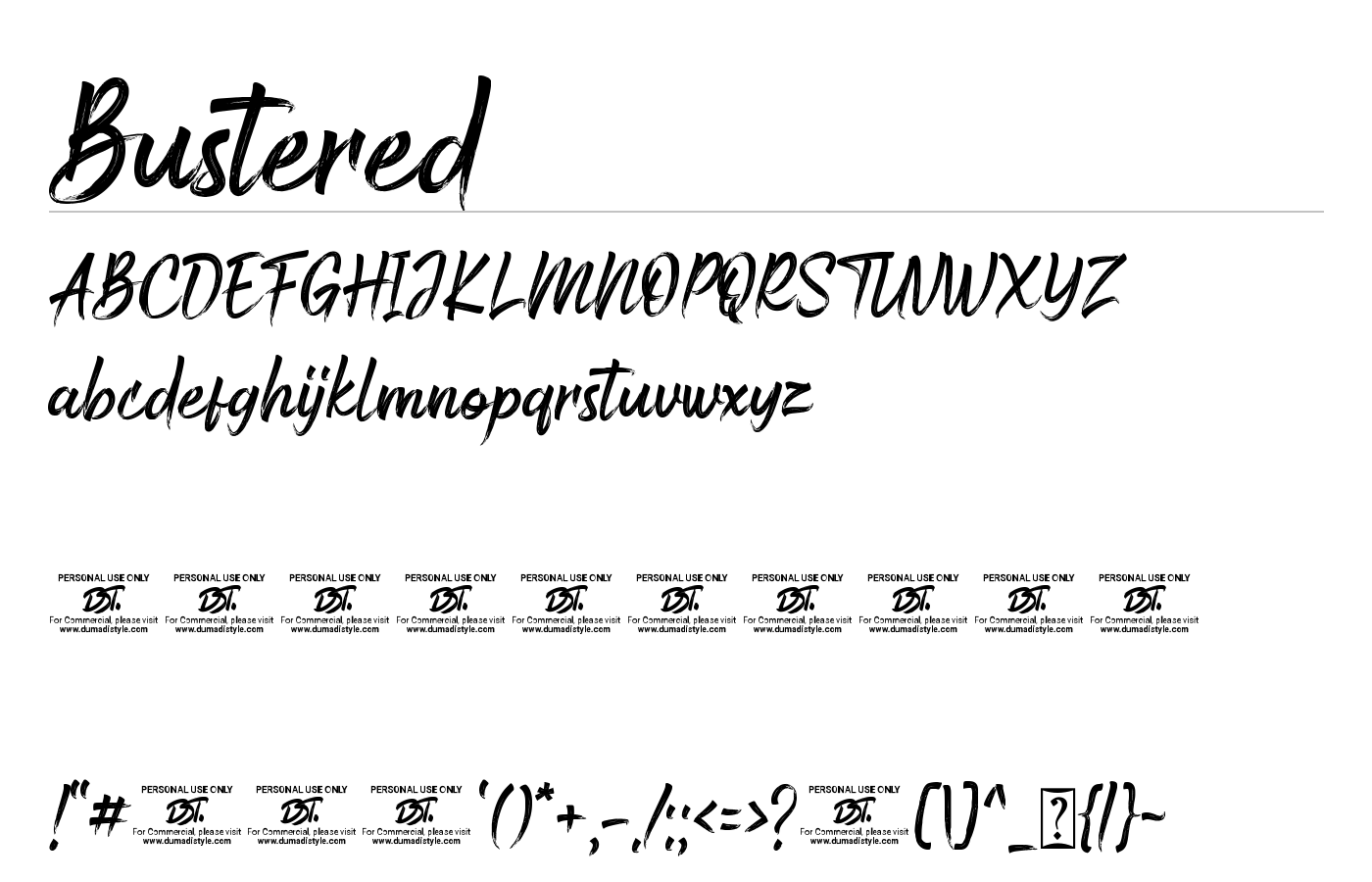
Bustered is a lively brush script font that combines energetic, hand-painted strokes with a bold and slightly rough texture. Its casual, yet dynamic style makes it perfect for projects that want to convey creativity, warmth, and a personal touch, fitting well with branding, headlines, and informal editorial designs. This font stands out by bringing a sense of artistic flair and authenticity to any visual communication.
Bustered Font
About Bustered Font
| Font family | Bustered Font |
| Designer | Toni Dzulham |